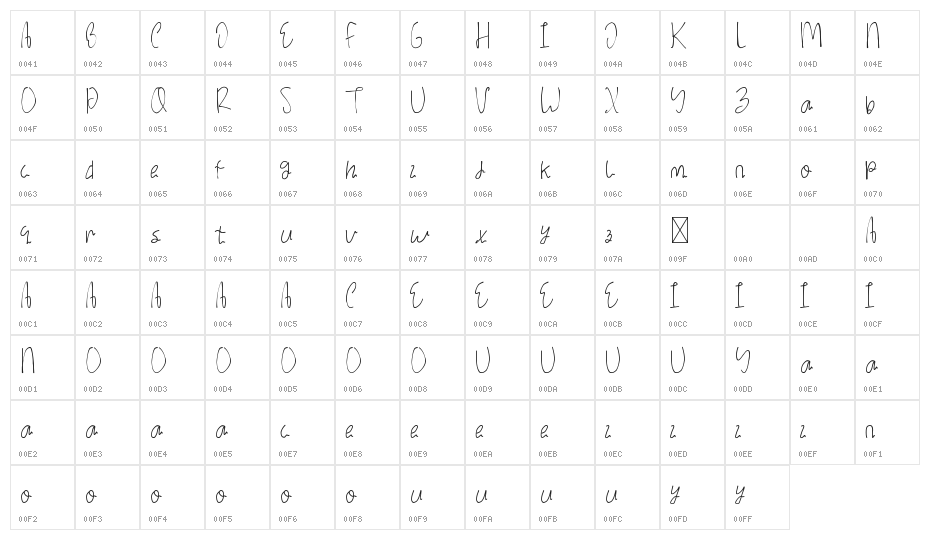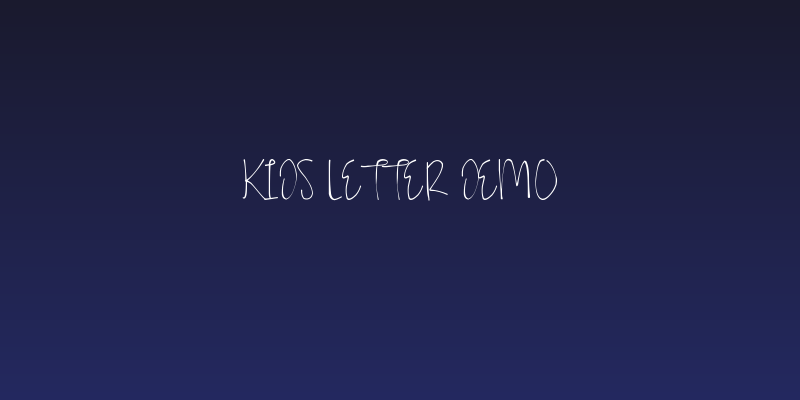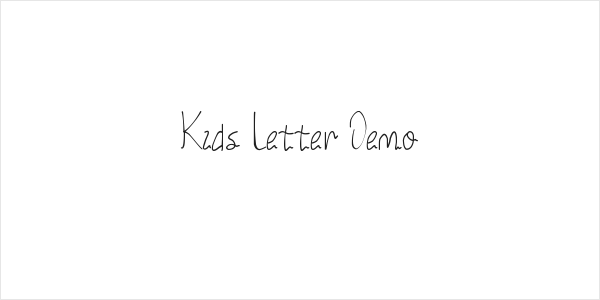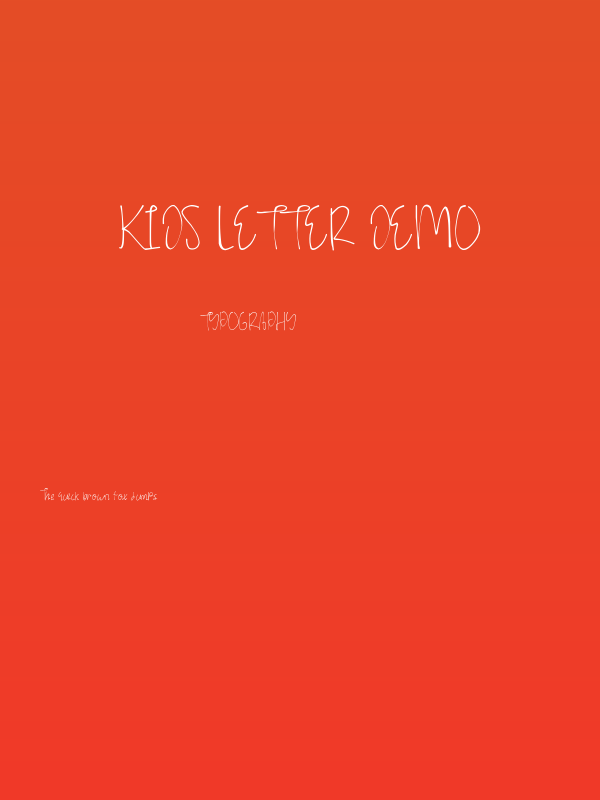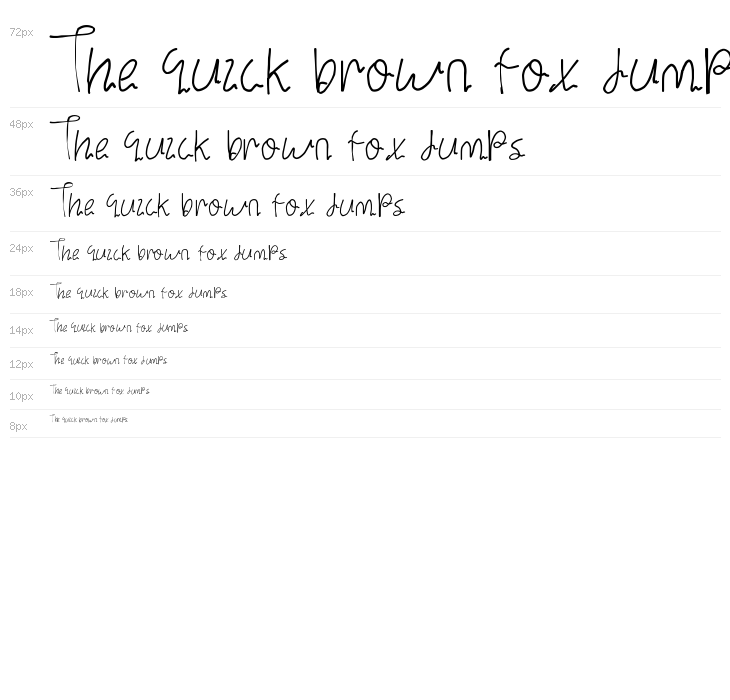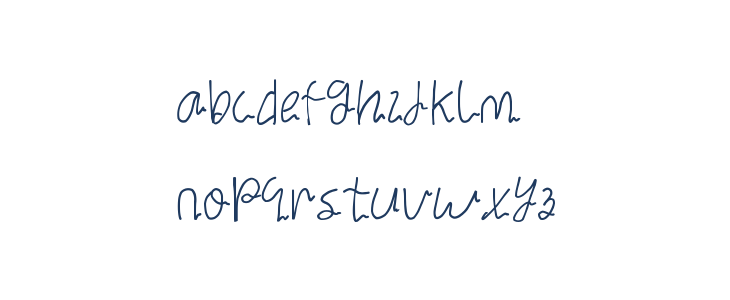
Kids Letter Demo Font
Kids Letter Demo Description
This playful and whimsical font features a handwritten style with a youthful and energetic vibe. The letters are characterized by their irregular, flowing lines and varying heights, giving them a lively and dynamic appearance. The strokes are thin and slightly uneven, adding to the casual and informal feel. This font captures a sense of spontaneity and creativity, making it ideal for projects that aim to convey fun and lightheartedness. The overall design is reminiscent of a child's handwriting, with a touch of artistic flair.
| Proposed Projects | Ideal for children's books, educational materials, playful branding, and creative invitations. |